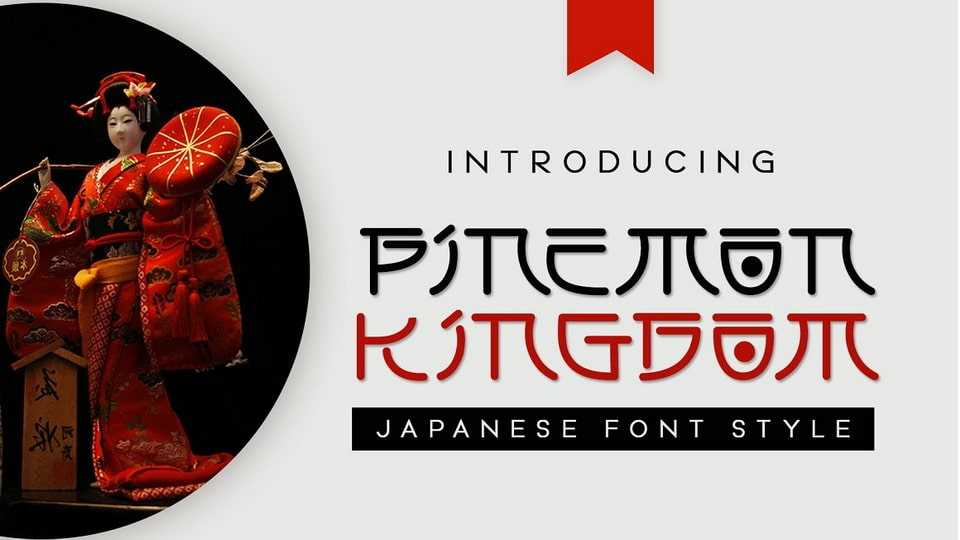
Download Pinemon Kingdom font, a Japanese style typeface combining ethnic and cultural elements in each of the glyphs. Pinemon Kingdom font is suitable for those of you who like Japanese culture.